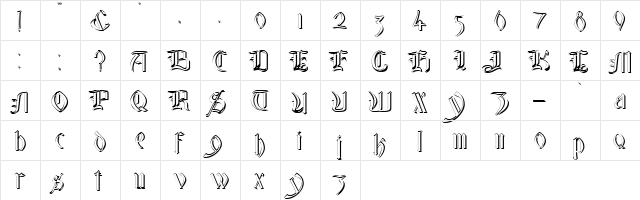
Glastonbury Wide Shadow Regular
Design Context for Glastonbury Wide Shadow Typeface
Glastonbury Wide Shadow brings ornamental detail and strong personality to headlines and identities, where visual impact matters more than quiet functionality.
Font Pairing: Pair with a clean neutral sans-serif for body copy to let Glastonbury Wide Shadow's character lead without overwhelming the composition.
Pro Tip: Use Glastonbury Wide Shadow exclusively at display sizes — it was designed to be seen, not read at length. Let a neutral companion handle body copy.